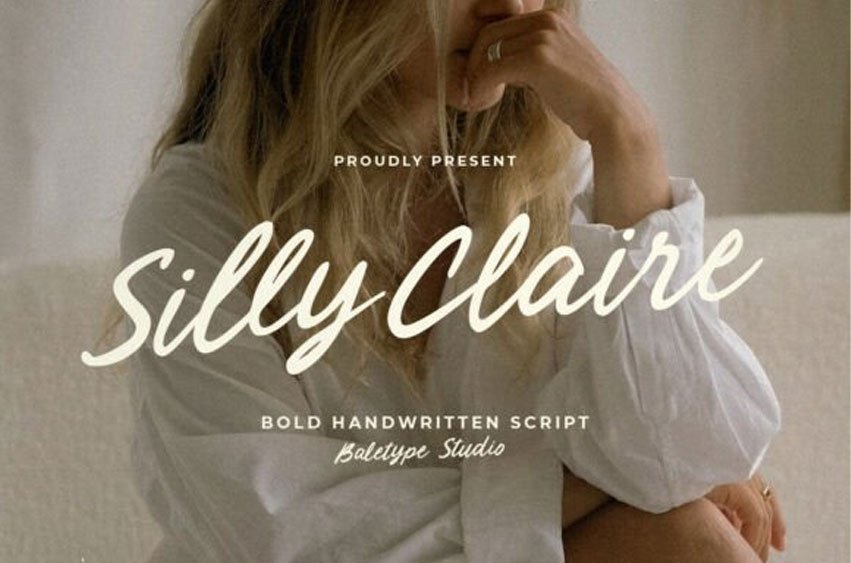
Silly Claire Font is a stylish and confident, bold handwritten script that blends casual charm with a polished, modern feel. With its smooth brush-like strokes and natural curves, this font is perfect for logos, fashion branding, quotes, packaging, and editorial designs.
Whether you’re crafting a personal brand or a lifestyle label, Silly Claire adds a warm and expressive personality to your work.